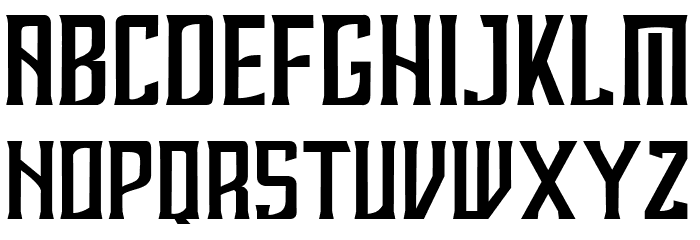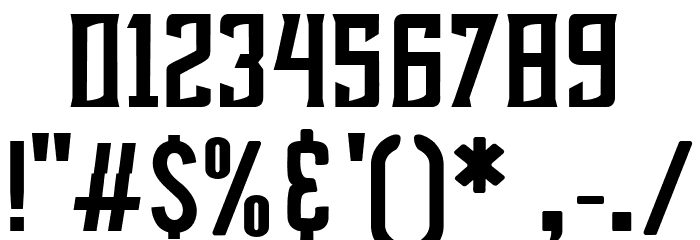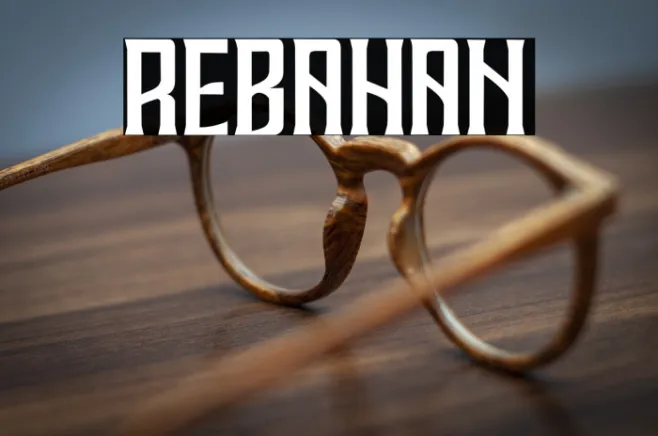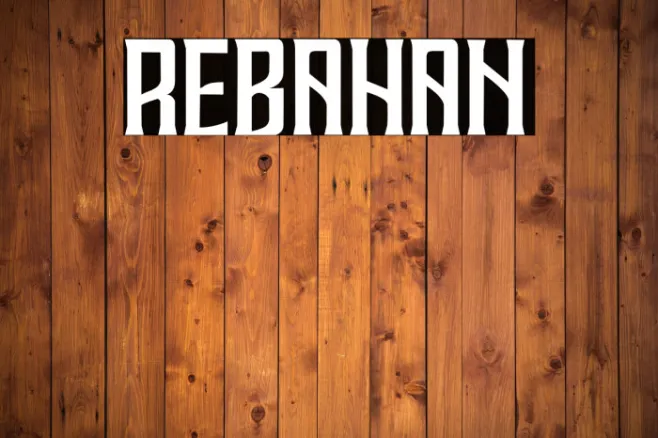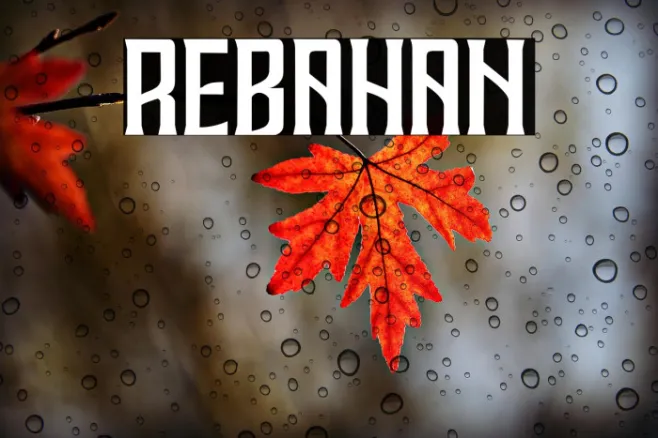
REBAHAN Font
This font features a bold and striking design with a modern, geometric aesthetic. The characters are constructed with sharp angles and clean lines, giving it a futuristic and edgy appearance. The uppercase and lowercase letters maintain a consistent height, while the numbers and special characters complement the overall style with their uniform structure. The font's design is highly legible, making it suitable for attention-grabbing headlines and impactful logos. Its unique style is both contemporary and versatile, allowing for creative expression in various design projects.
A bold, geometric font with a modern and edgy style.
- Proposed Projects: Ideal for branding, posters, album covers, and digital media where a strong visual impact is desired.